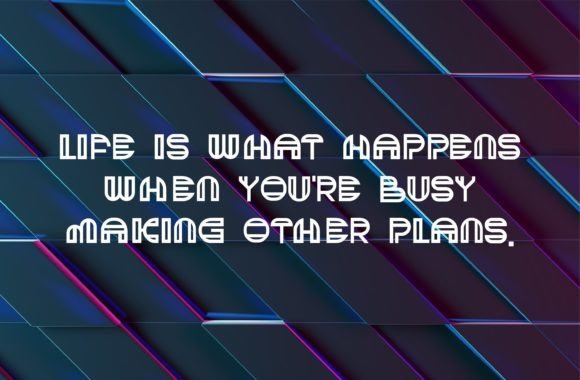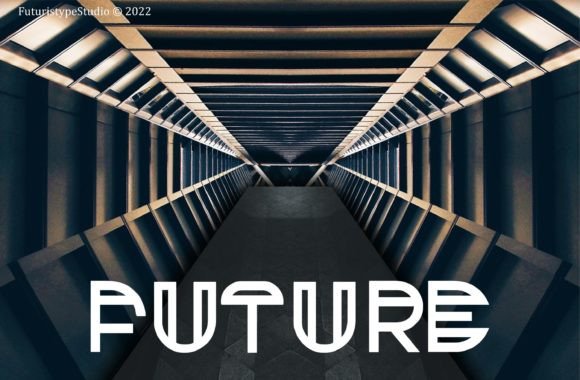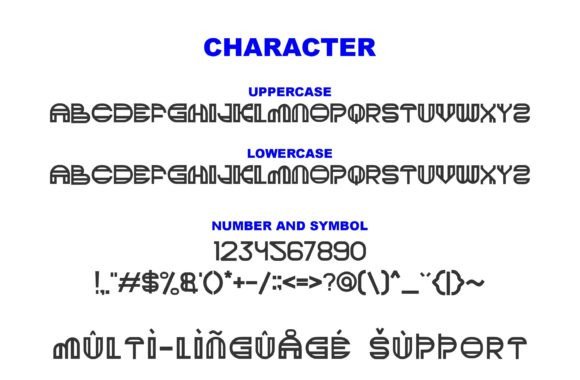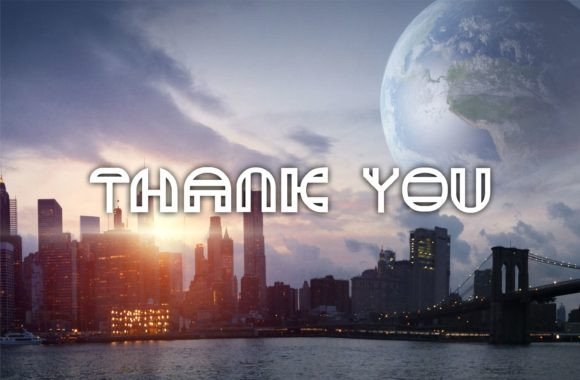
The Font that Took my Breath Away: A Deep Dive into Genkes Font
I still remember the design project that led me to discover Genkes Font. I was working on a futuristic tech brochure, and my client wanted a font that would scream innovation and modernity. I scoured the internet, tried out countless fonts, but nothing seemed to fit the bill. That was until I stumbled upon Genkes Font. Its bold, futuristic vibe instantly caught my attention, and I knew I had found the perfect fit. In this article, I’ll share my experience with Genkes Font, its features, and how to make the most out of it.
An Honest Review of Genkes Font
What I Love About Genkes Font
- ✨ Modern and Bold Vibe: Genkes Font exudes a sense of futurism and innovation, making it perfect for projects that require a cutting-edge feel.
- ✅ Highly Versatile: This font can be used for a wide range of projects, from digital displays to print materials.
- 💥 Attention-Grabbing: Genkes Font is designed to grab attention, making it ideal for headlines, titles, and promotional materials.
While Genkes Font is an excellent choice for many projects, it’s not without its limitations. For instance:
- 🤔 Legibility at Small Sizes: Genkes Font can be challenging to read at small sizes, so it’s best used for headlines or titles rather than body text.
- ⚠️ Limited Serif Options: Genkes Font is a sans-serif font, which may not be suitable for projects that require a more traditional or formal look.
The Backstory of Genkes Font
Genkes Font was designed by a team of creatives who wanted to create a font that would capture the essence of futurism and innovation. Inspired by sci-fi movies and tech industry branding, Genkes Font was crafted to be bold, modern, and attention-grabbing.
Q: What is Genkes Font?
Genkes Font is a modern and bold display font designed for futuristic and innovative projects.
Q: Is Genkes Font suitable for body text?
While Genkes Font can be used for body text, it’s primarily designed for headlines and titles. For body text, consider using a font with better legibility at small sizes.